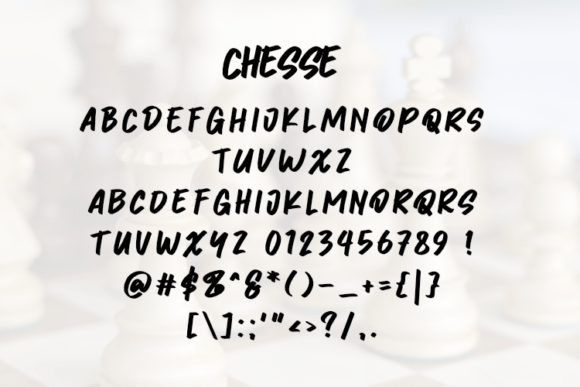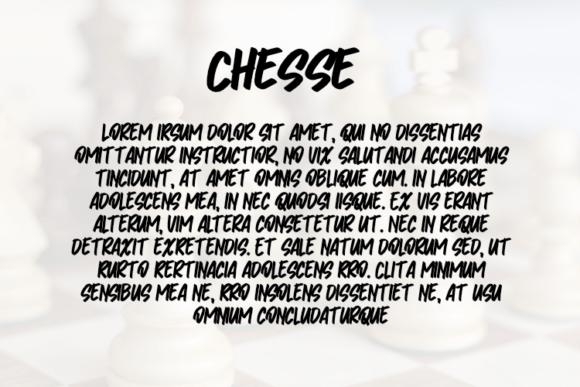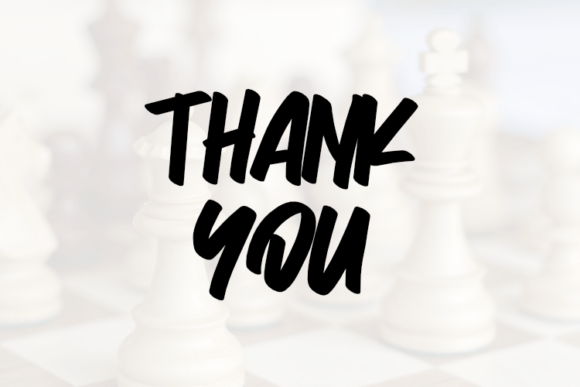
Unleash Your Creativity with Chesse Font: Elevate Your Designs to New Heights
Are you a designer or crafter looking to add a bold flair to your clothing and product designs? Look no further than Chesse Font, an exquisitely crafted font that’s destined to take your creations to new heights. With its universal compatibility and versatility, Chesse is the perfect addition to your design toolkit.
What is Chesse Font?
Chesse Font is a unique and stylish font designed to help you stand out with style. Its sleek and modern design makes it perfect for a wide range of applications, from funky t-shirts to sophisticated accessories. Whether you’re a professional designer or a crafty DIY enthusiast, Chesse Font is sure to inspire your creativity.
So, what are the benefits of using Chesse Font for your designs? Here are just a few:
- Stand out with style: Chesse Font is designed to help you create unique and eye-catching designs that stand out from the crowd.
- Versatile: Chesse Font is perfect for a wide range of applications, from clothing and accessories to packaging and branding.
- High-quality: Chesse Font is crafted with precision and attention to detail, ensuring a high-quality finish that will elevate your designs.
Design Ideas with Chesse Font
So, what can you create with Chesse Font? Here are a few design ideas to get you started:
- Funky t-shirts: Use Chesse Font to create bold and eye-catching designs for t-shirts, tank tops, and other clothing items.
- Sophisticated accessories: Add a touch of elegance to your accessories, such as tote bags, hats, and scarves, with Chesse Font.
- Packaging and branding: Use Chesse Font to create unique and memorable packaging and branding for your products.
- Signs and posters: Create eye-catching signs and posters with Chesse Font, perfect for advertising, promotions, and events.